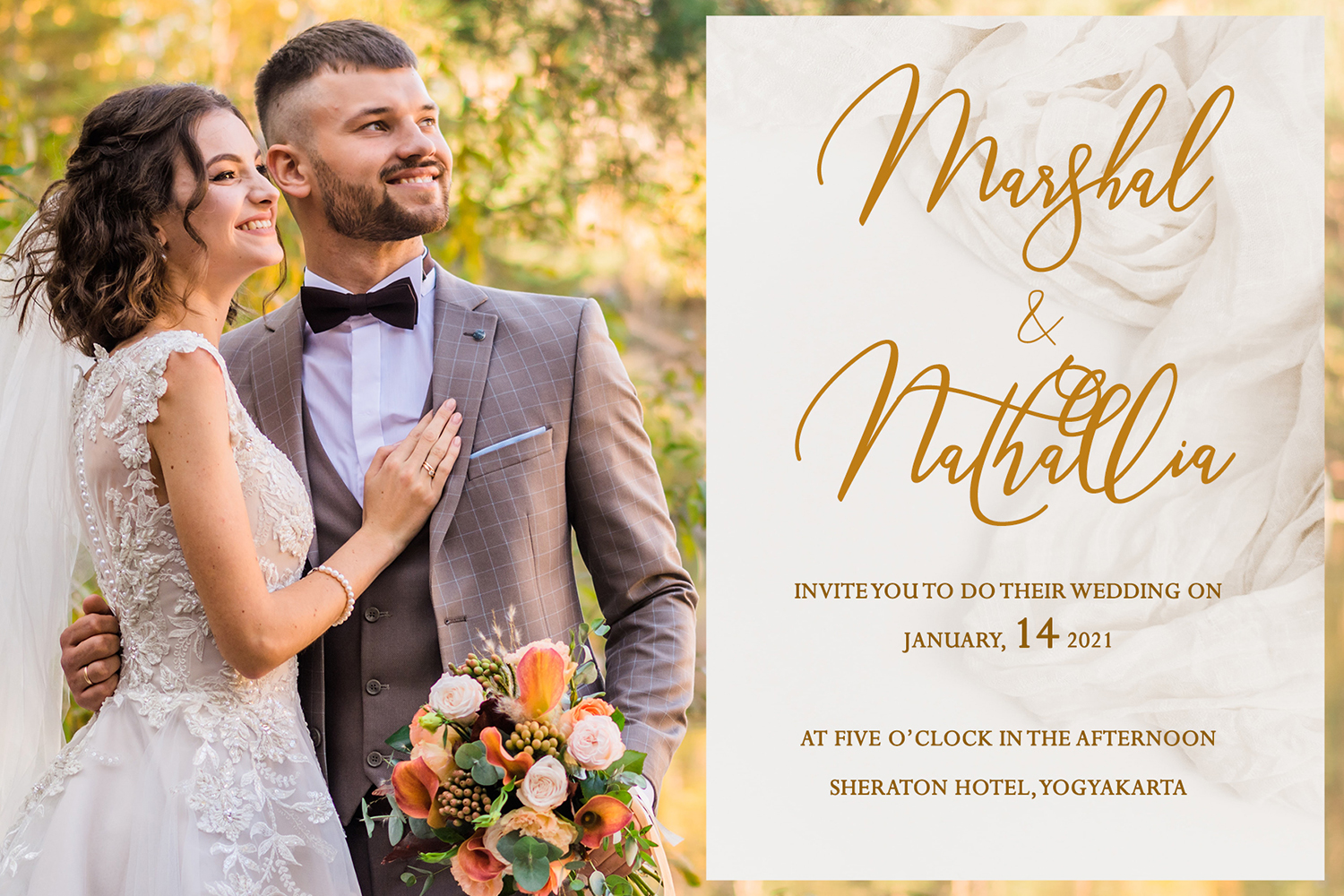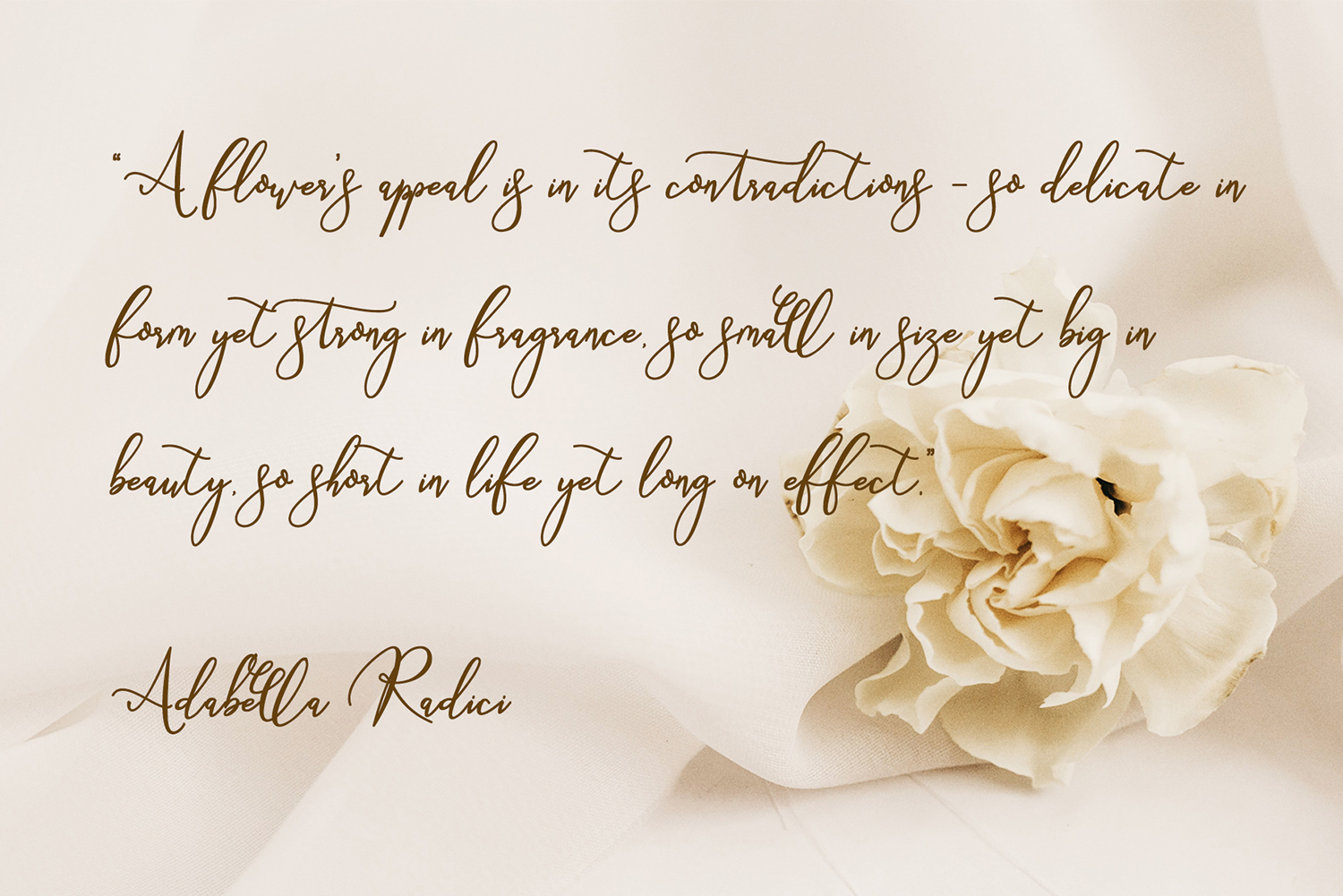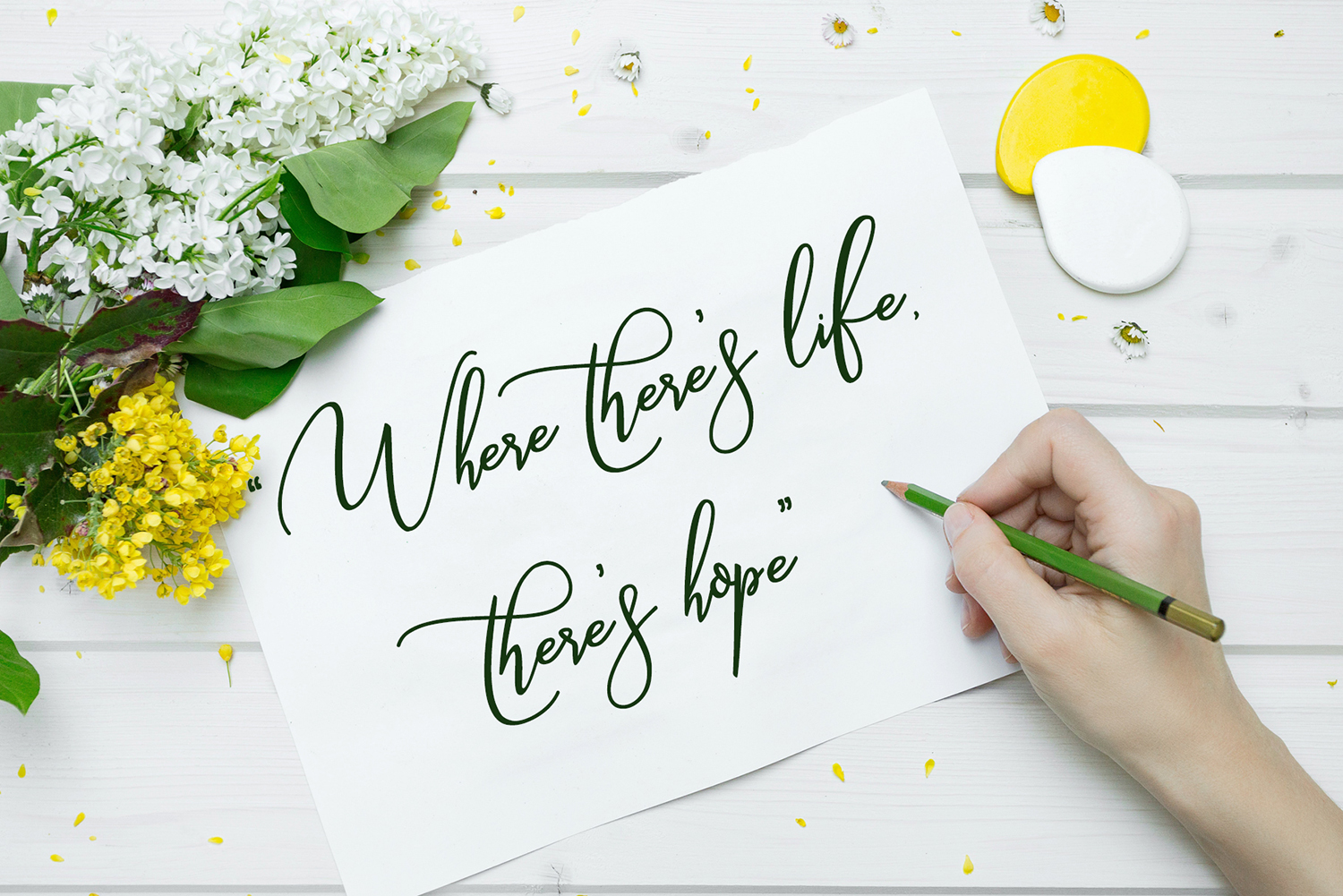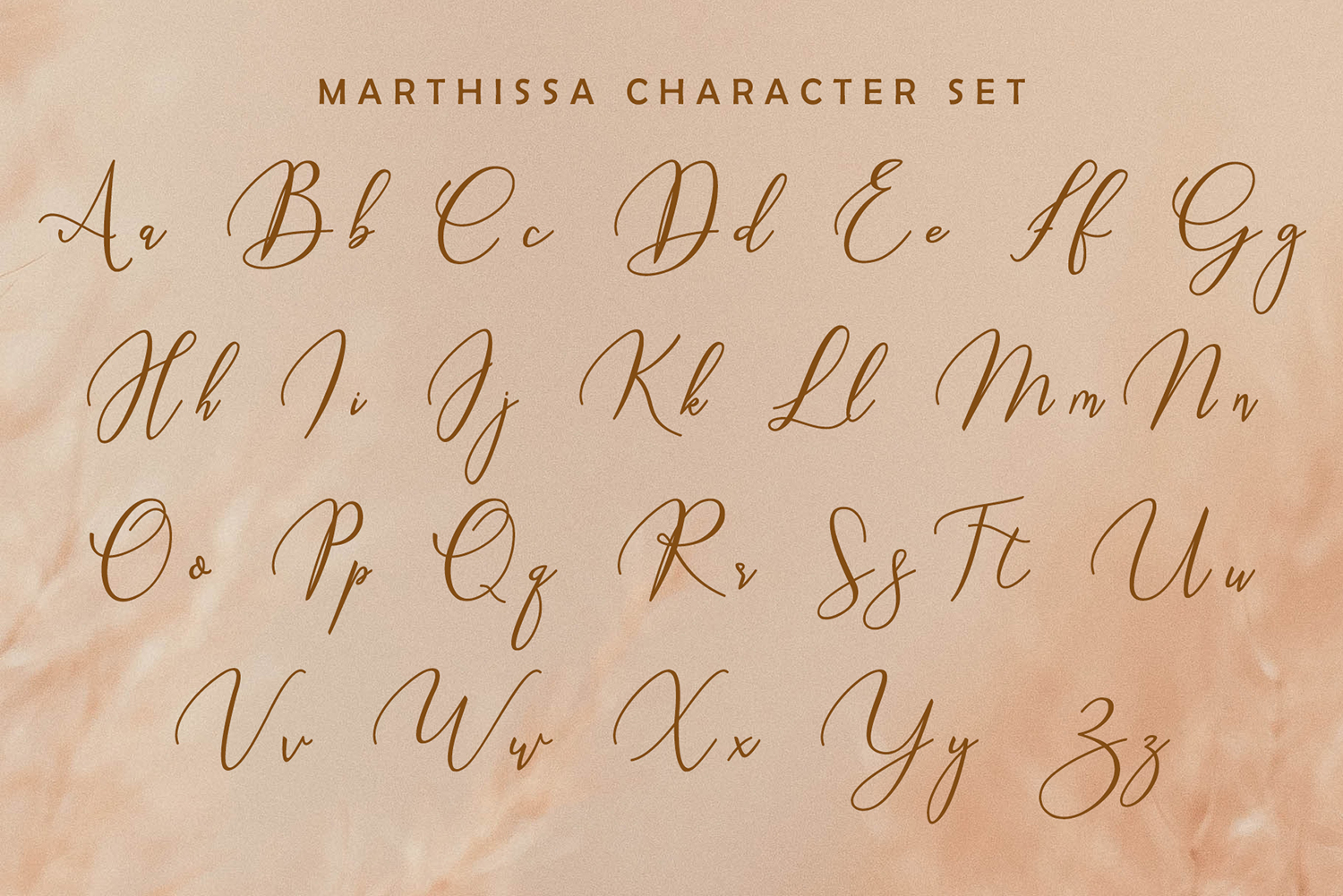
Marthissa Free Font
Meet Marthissa Free Font, the epitome of refinement and fashion in handwritten fonts. With its gentle and elegant appeal, this font enhances a wide array of design ideas. Infuse your projects with joy and romance as Marthissa gracefully adds its charm to each creation. Discover the beauty of Marthissa and elevate your designs to new heights. This free typeface was designed by a talented Sarif Hidayat. If you like it don’t forget to check out the full version.